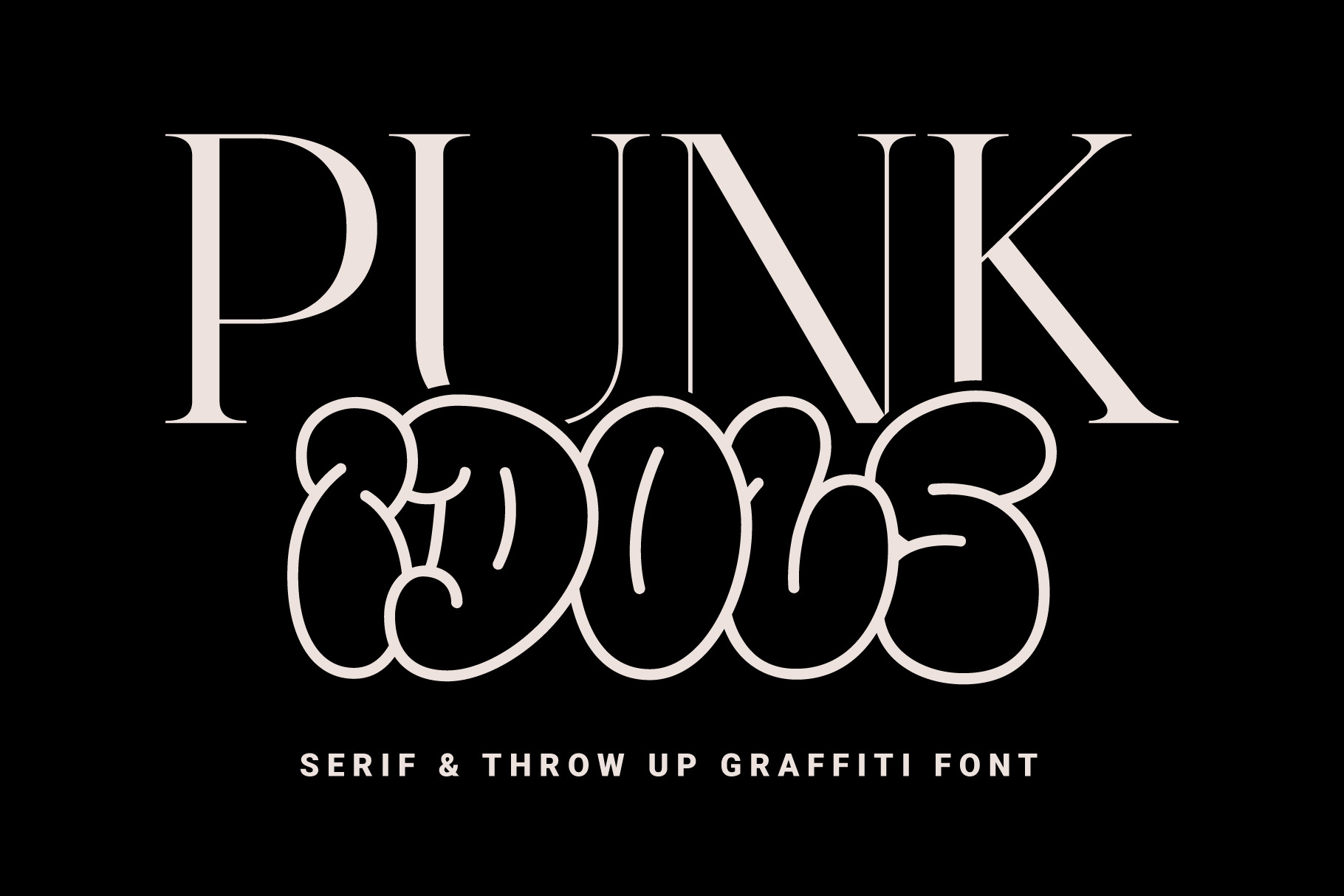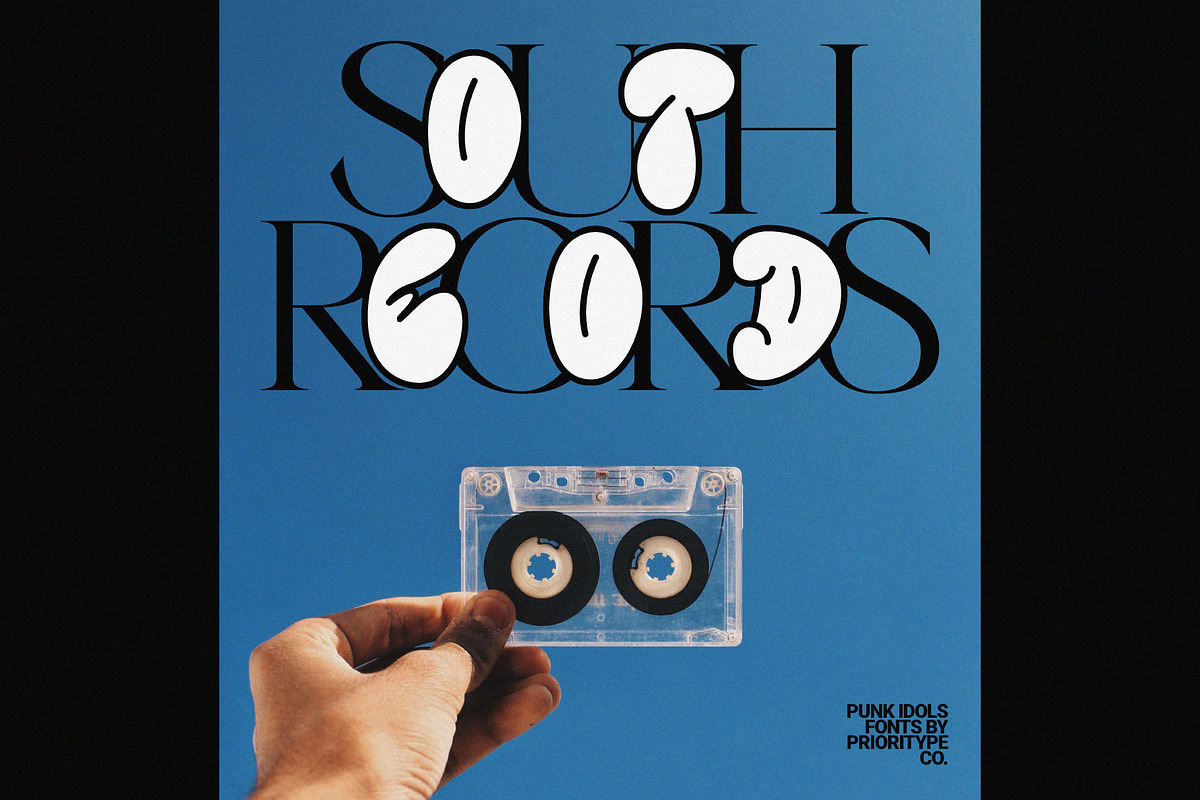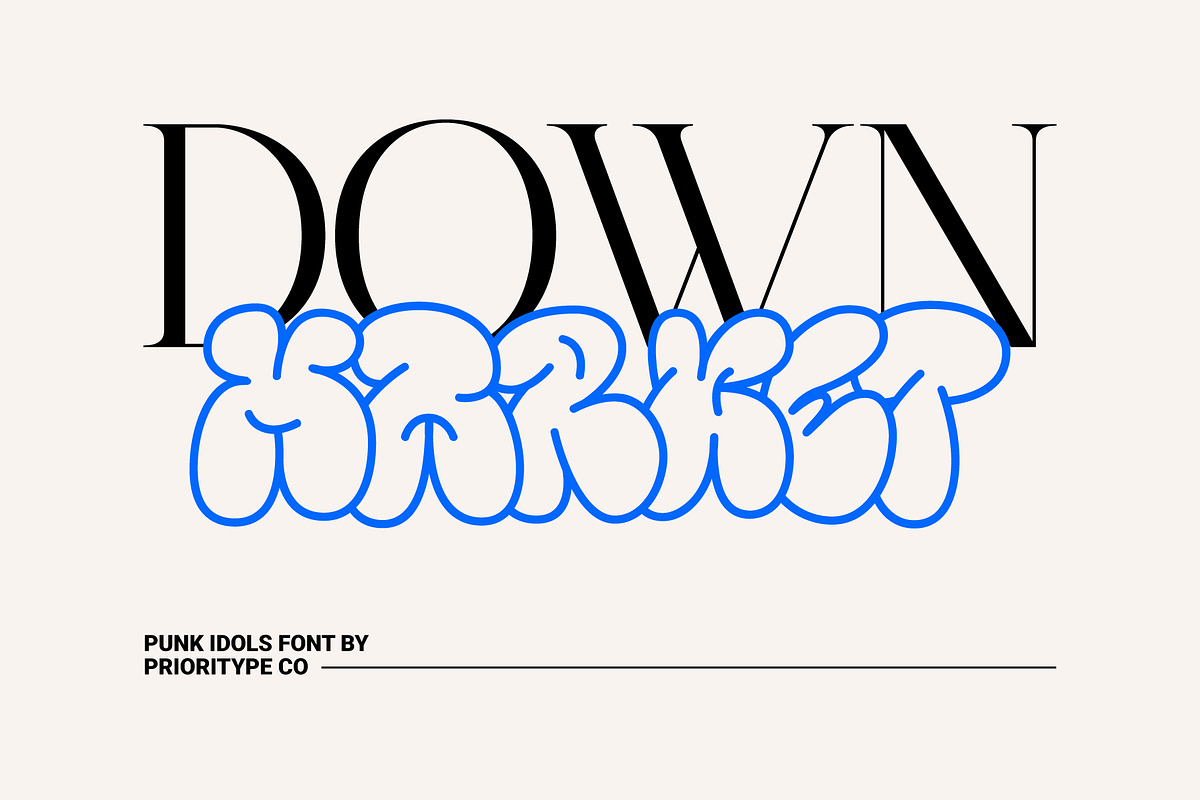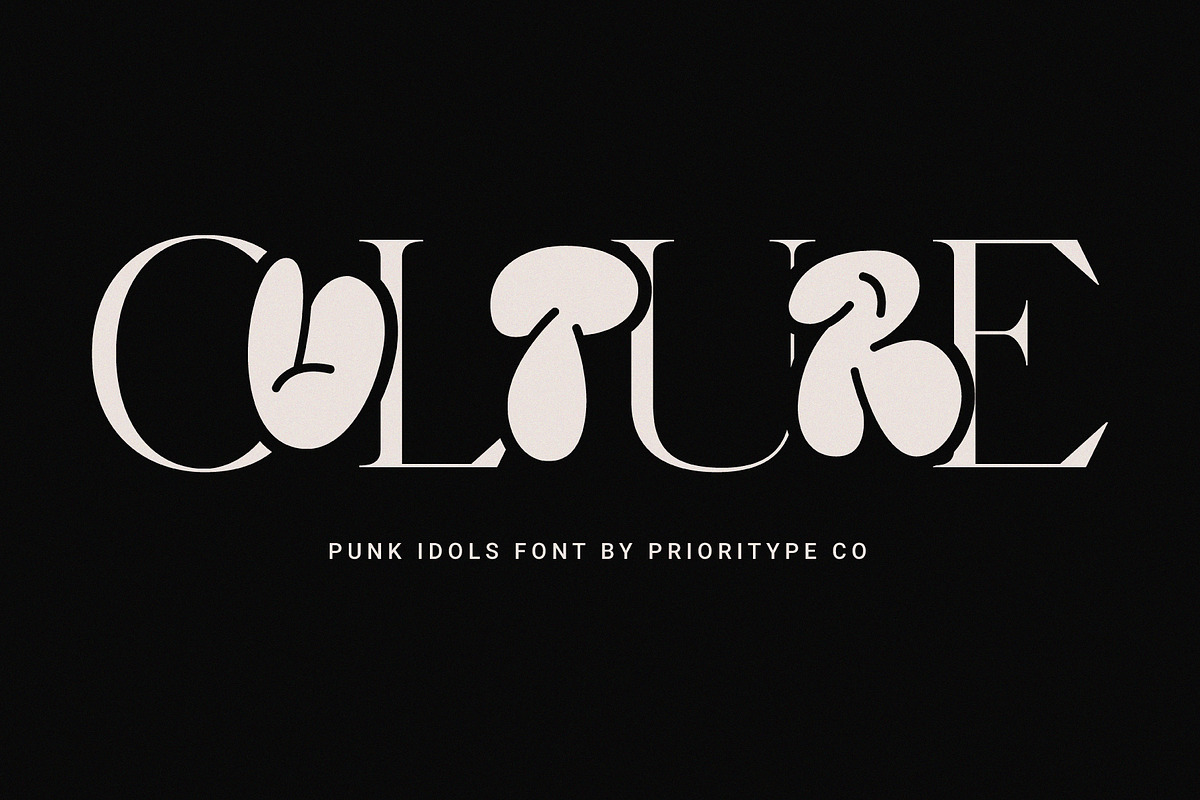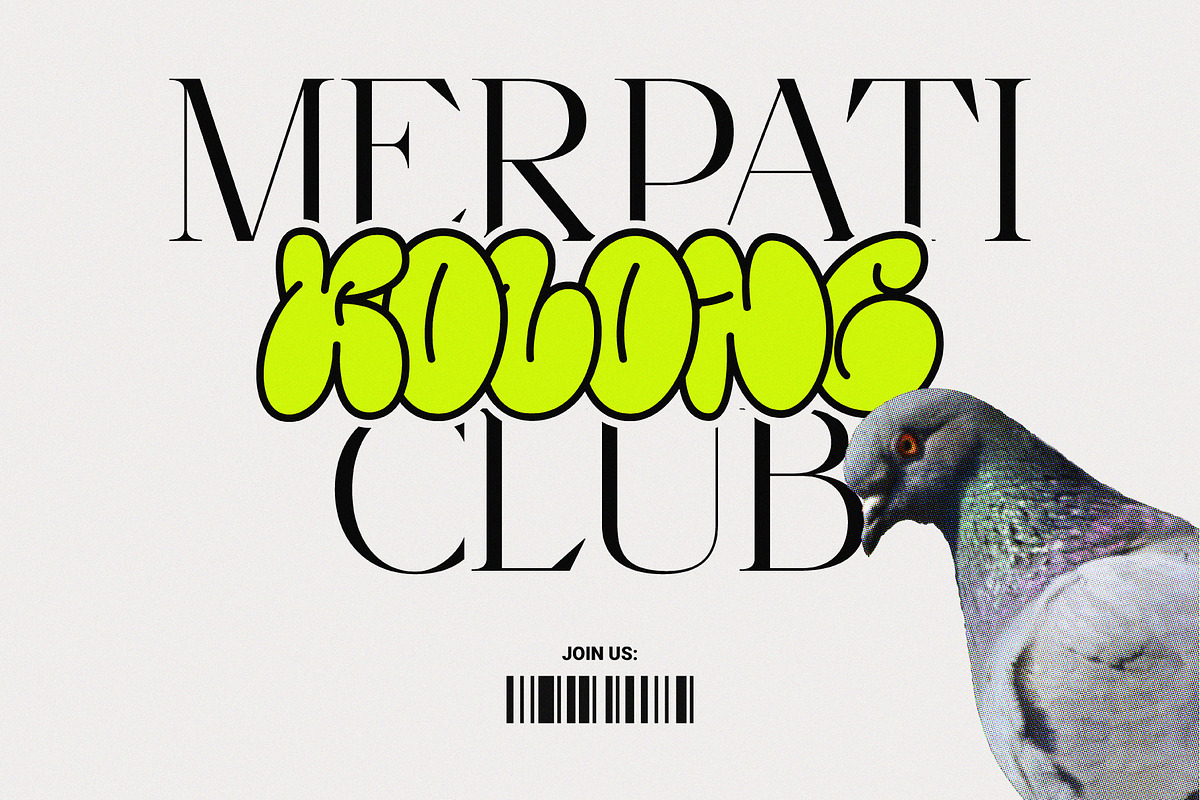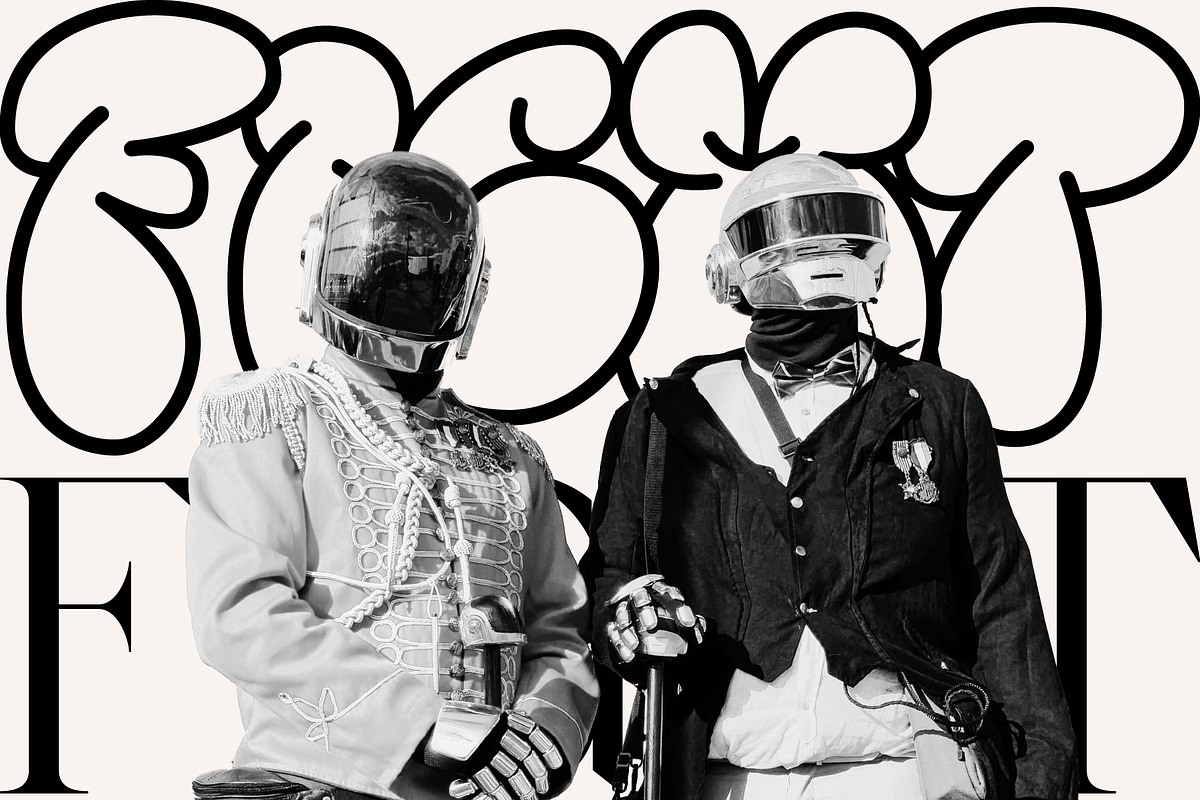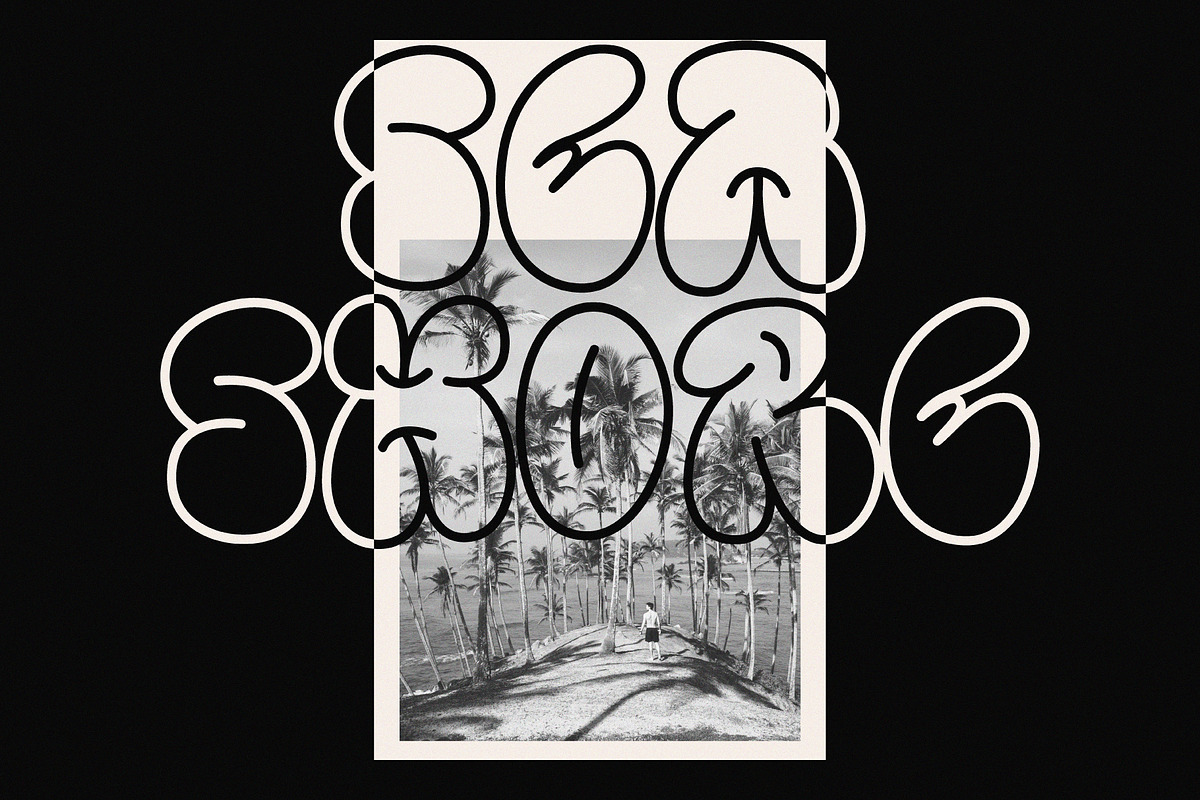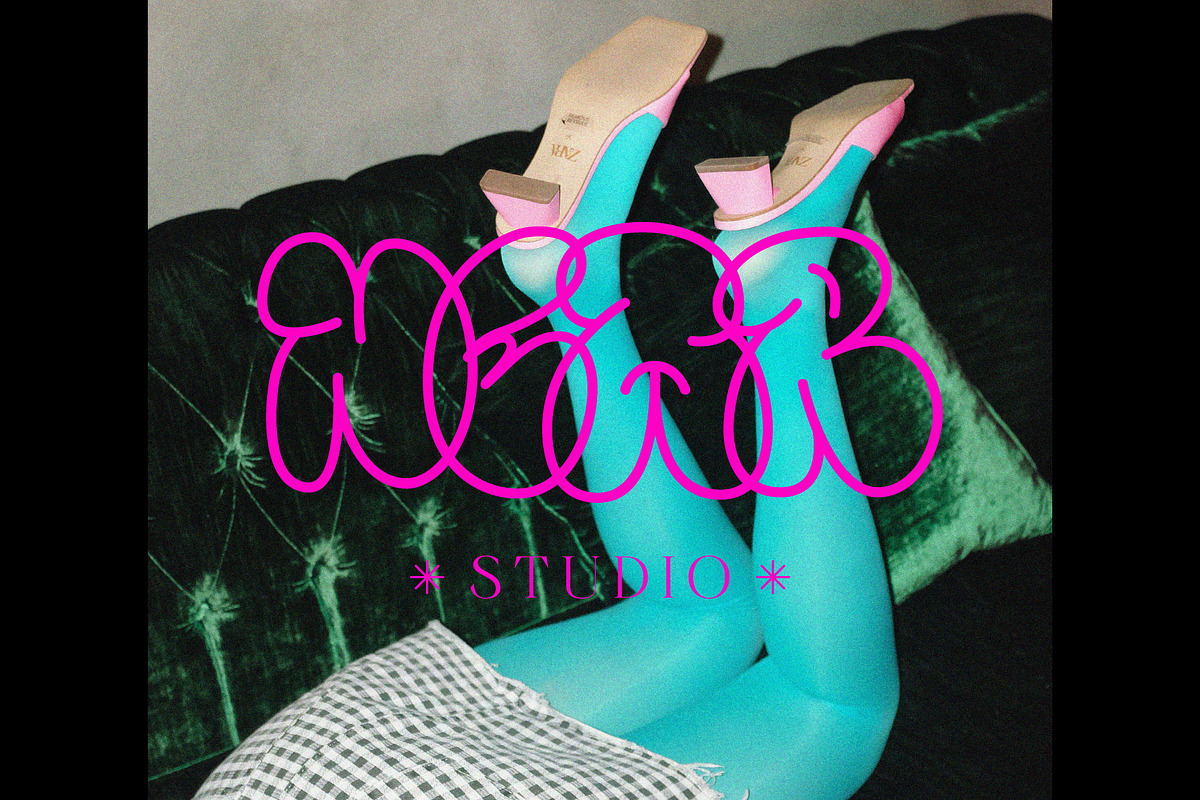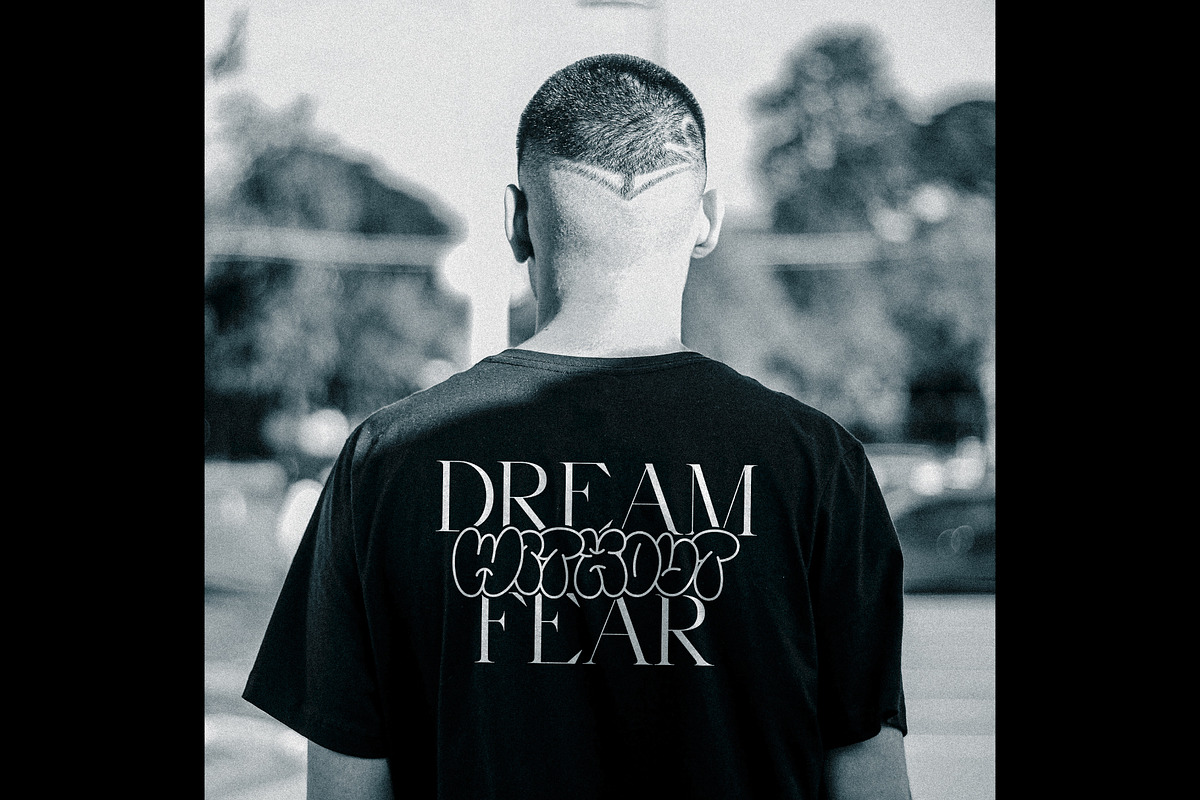
Punk Idols – Serif & Throw Up Font
Punk Idols is a combined serif and throw-up graffiti (hand-drawn) font packaged in one font. If you use it you are very flexible in exploring designs for any project such as posters, logos, merchandise and even branding.
Features: Uppercase, Lowercase, Numeral, Punctuation & Multilingual.
Multilingual contained: Afrikaans, Albanian, Asu, Basque, Bemba, Bena, Breton, Catalan, Chiga, Cornish, Danish, Dutch, English, Estonian, Filipino, Finnish, French, Friulian, Galician, German, Gusii, Indonesian, Irish, Italian, Kabuverdianu, Kalenjin, Kinyarwanda, Luo, Luxembourgish, Luyia, Machame, Makhuwa-Meetto, Makonde, Malagasy, Manx, Morisyen, North Ndebele, Norwegian Bokmål, Norwegian Nynorsk, Nyankole, Oromo, Portuguese, Quechua, Romansh, Rombo, Rundi, Rwa, Samburu, Sango, Sangu, Scottish Gaelic, Sena, Shambala, Shona, Soga, Somali, Spanish, Swahili, Swedish, Swiss German, Taita, Teso, Uzbek (Latin), Volapük, Vunjo, Zulu. For any questions please contact me :)